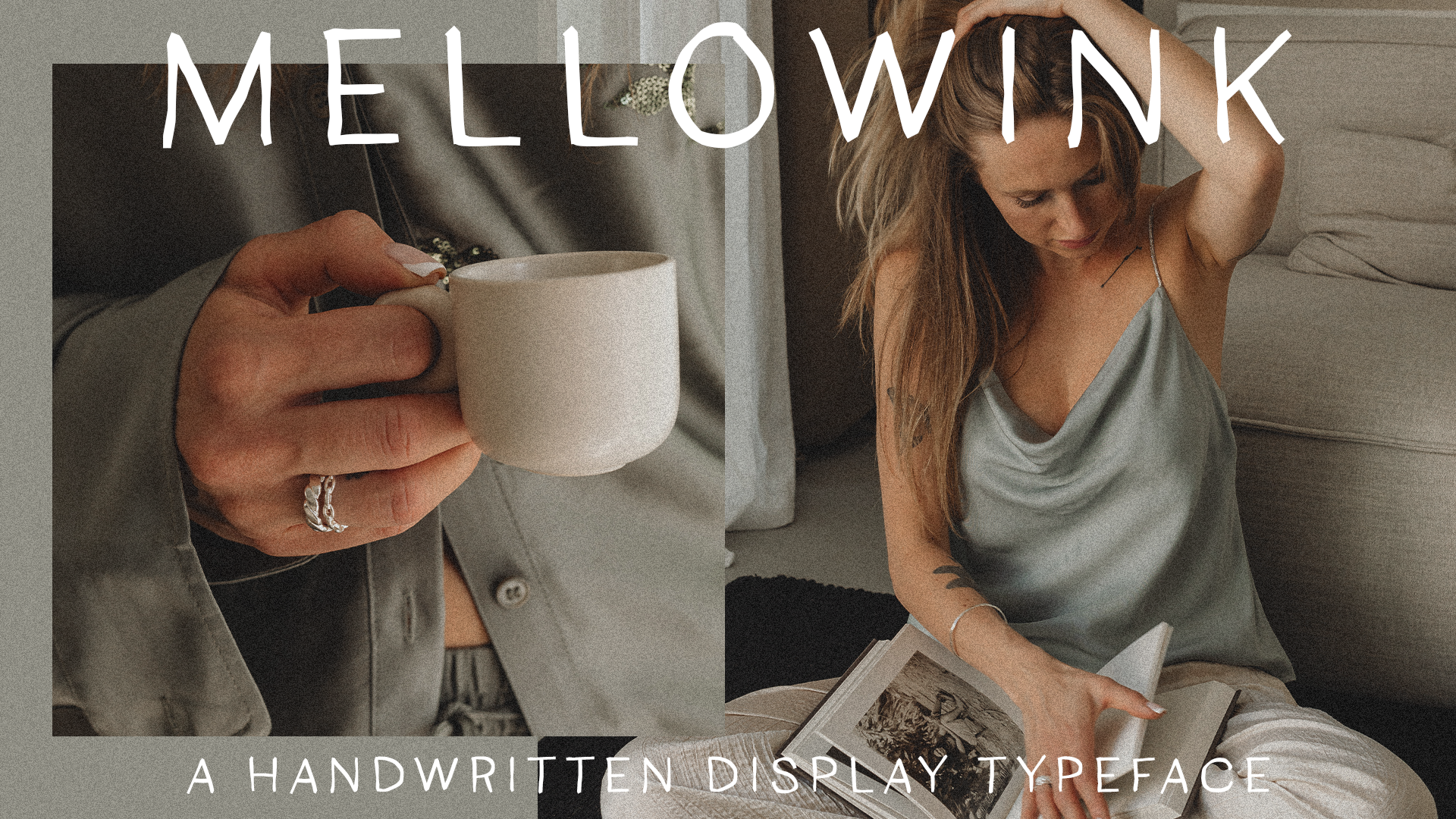
Mellowink Low Contrast Display Font
Mellowink™ is a low contrast, handwritten display font designed for cheeky graphics, posters and brand identities designed by Kelsey Kleiner here at OneTen.
Mellowink™ includes uppercase, lowercase, 0-9, basic punctuation and is multilingual.